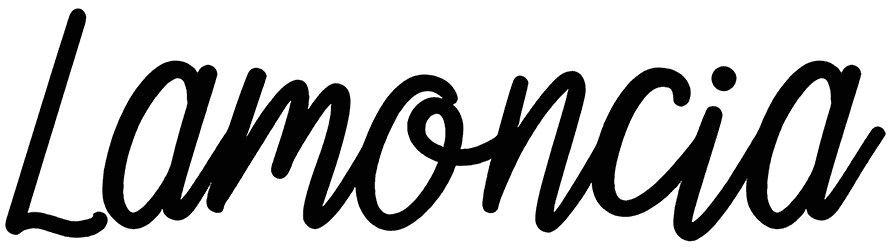
Lamoncia Font
When you set a handwritten font like the present offer, your final showcase will become modern and casual. This cursive font has a smooth and realistic visual, and you can count on it for numerous topics, such as a travel postcard or a birthday party invitation. Lamoncia font is going to throw a friendly feeling into your creative layouts.